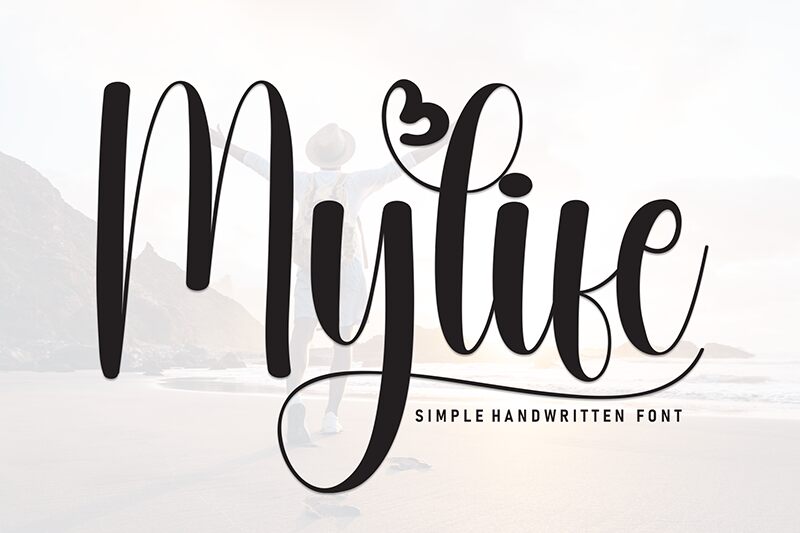
Mylife
Mylife font by Andi Moz is a condensed and elegant calligraphy font with a flowing style where each detail carries beauty. The expressive handwritten penmanship lends it to being used with feminine, whimsical, and playful designs. The balance established in Mylife is what makes its warm ambiance all the more notable.